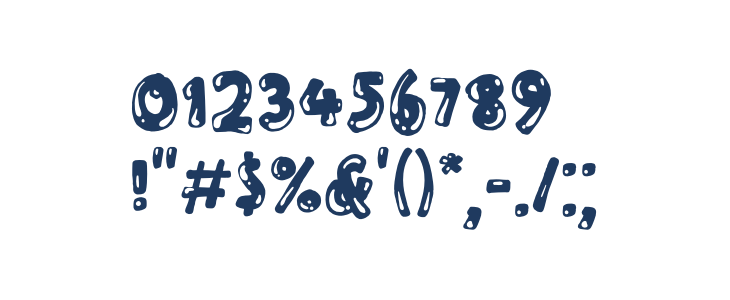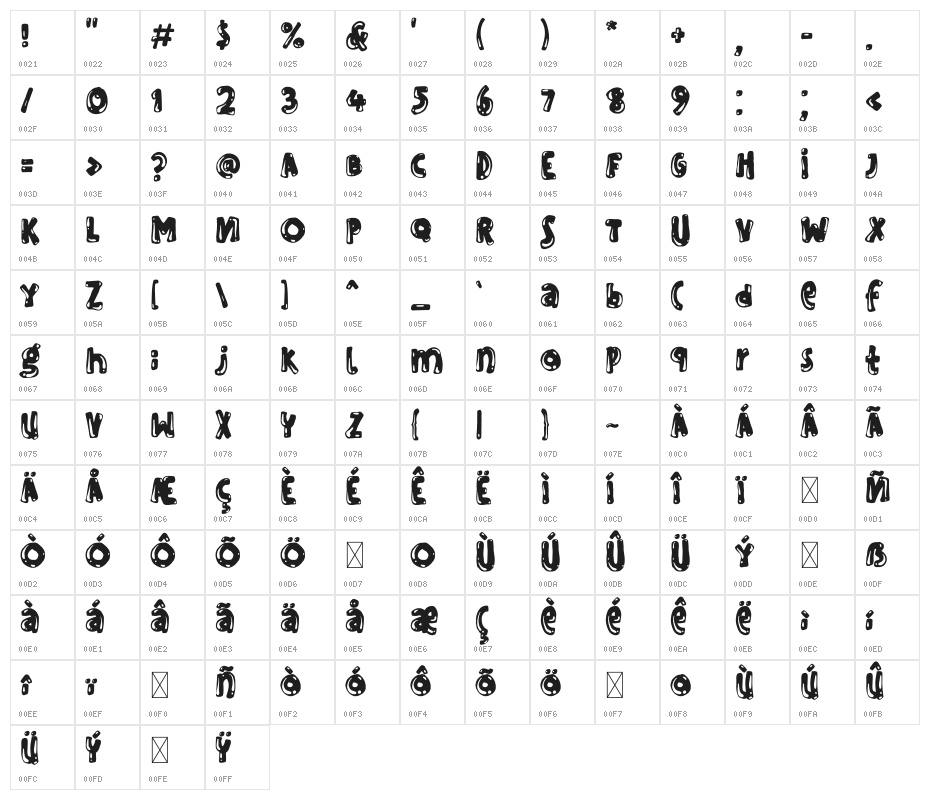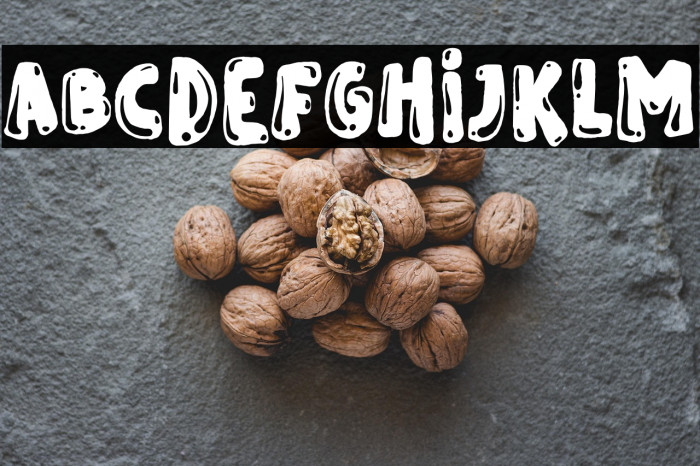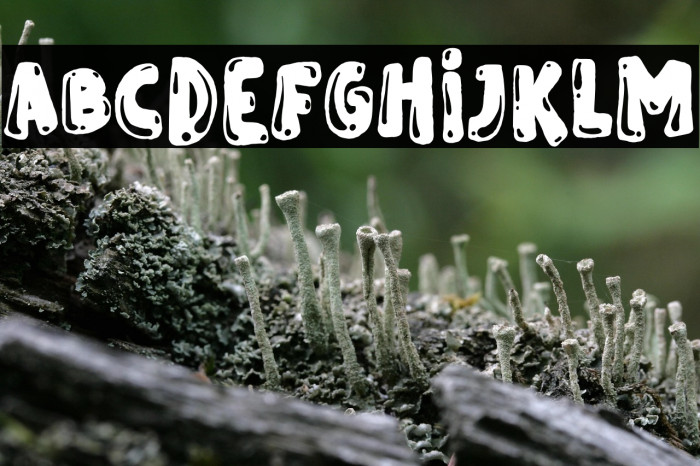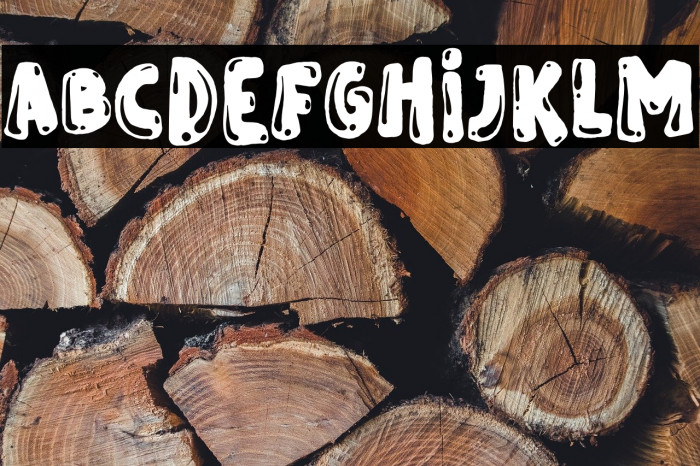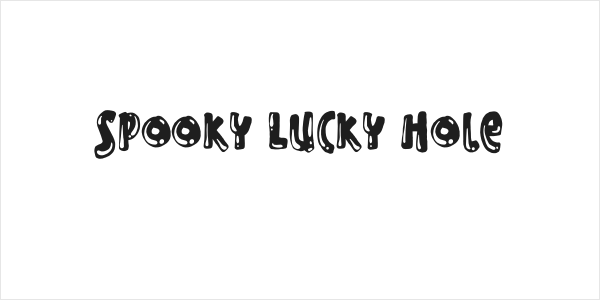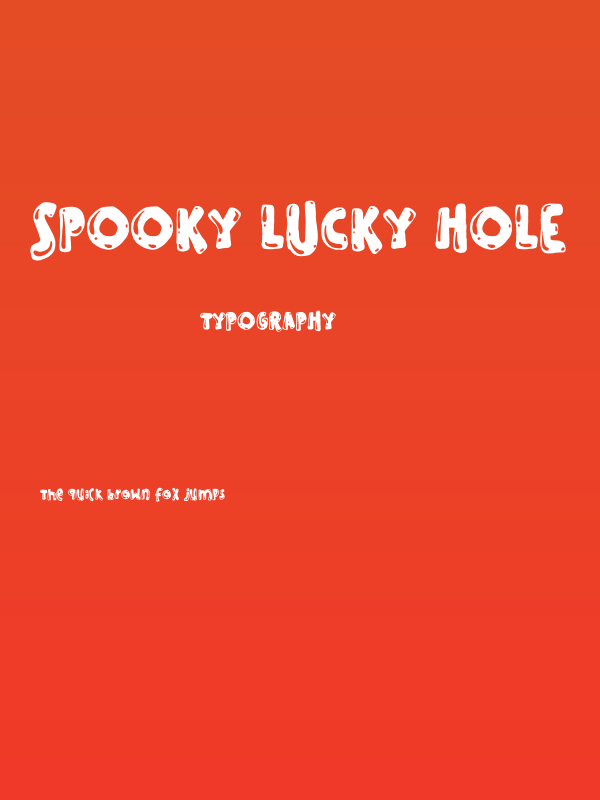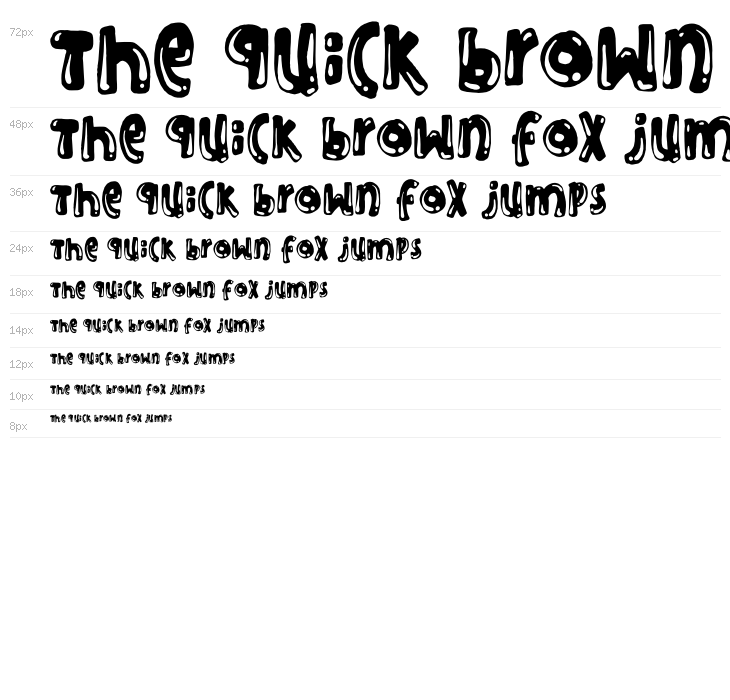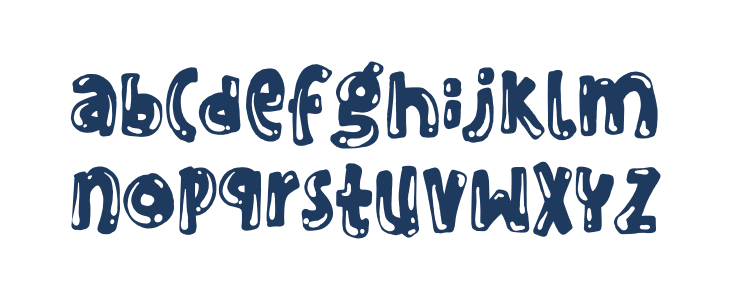
Spooky Lucky Hole Font
Spooky Lucky Hole Description
This font features a playful and whimsical design with bold, irregular shapes and a distinctive 'hole' pattern within each character. The letters are rounded and slightly uneven, giving them a hand-drawn appearance. The uppercase and lowercase letters maintain a consistent style, with the lowercase being slightly smaller but equally bold. Numbers and special characters follow the same design principles, ensuring a cohesive look. The font's unique style makes it stand out, perfect for creative and fun projects.
| Proposed Projects | Ideal for Halloween-themed designs, children's books, playful branding, and party invitations. |